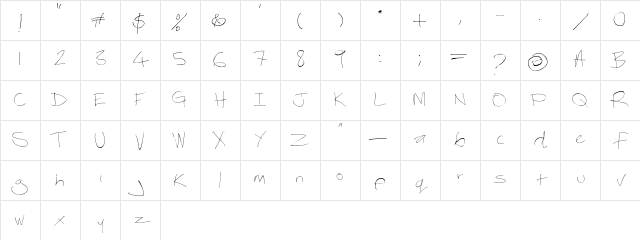
Complete The best of my love Light glyph index. Displaying only characters natively supported by The best of my love Light font.
The best of my love is a composed and adaptable typeface that performs quietly and consistently across a wide range of design contexts. Its slender proportions lend an understated elegance to any composition.